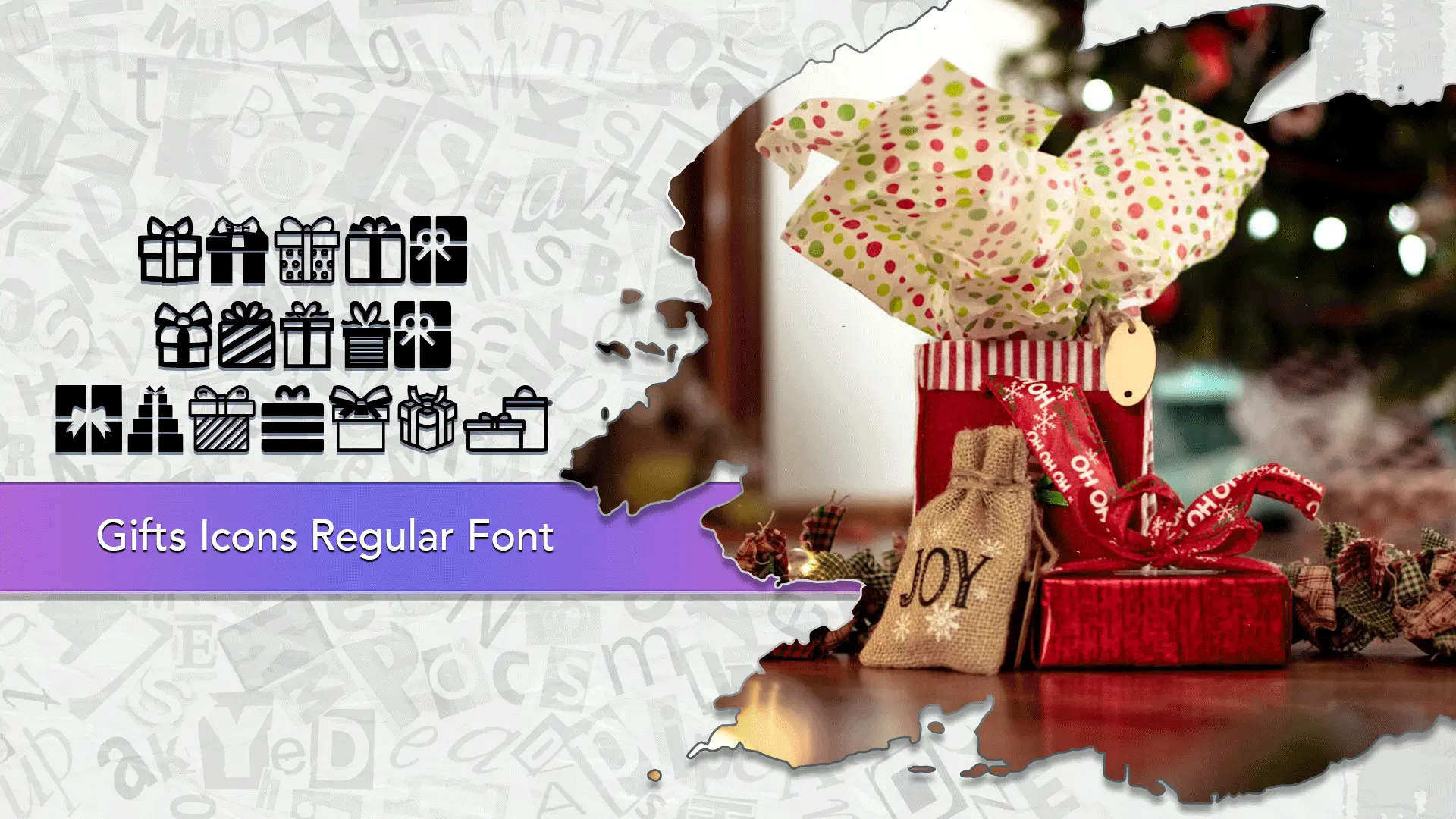
The Gifts Icons font family may be ideal for you if you enjoy working on an artistic design project. The lively, expressive look of this typeface, which was created by Woodcutter, makes it ideal for Holiday and Event Design. Gifts Icons Font is perfect for adding a gift symbol next to products to highlight “Gift Idea” or “Add Gift Wrapping” options on websites or app interfaces. It also works great for quickly inserting festive graphics into birthday cards, wedding registries, holiday newsletters, and baby shower announcements. and other light-hearted visual projects.
Regular are the one primary font styles of the Gifts Icons font family. You may build dynamic, visually appealing text layouts with the distinct flair that each style offers. With crisp, readable lines and a relaxed tone.